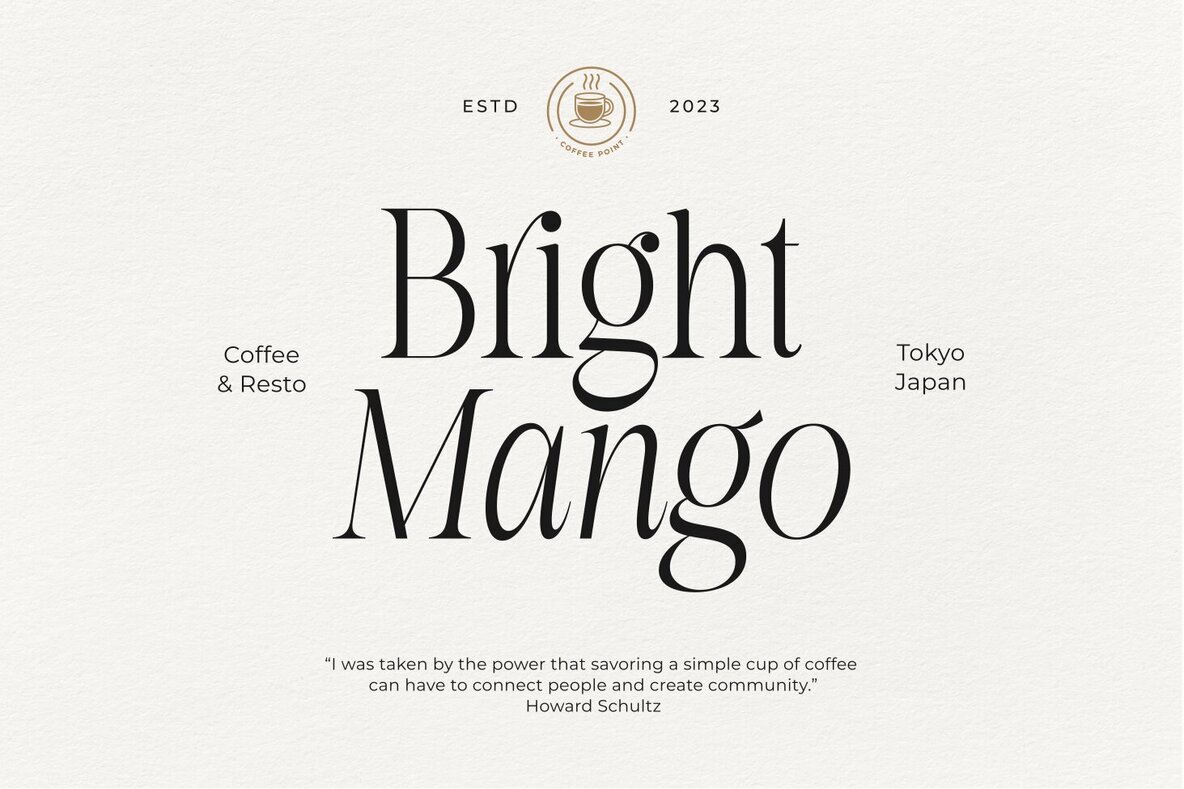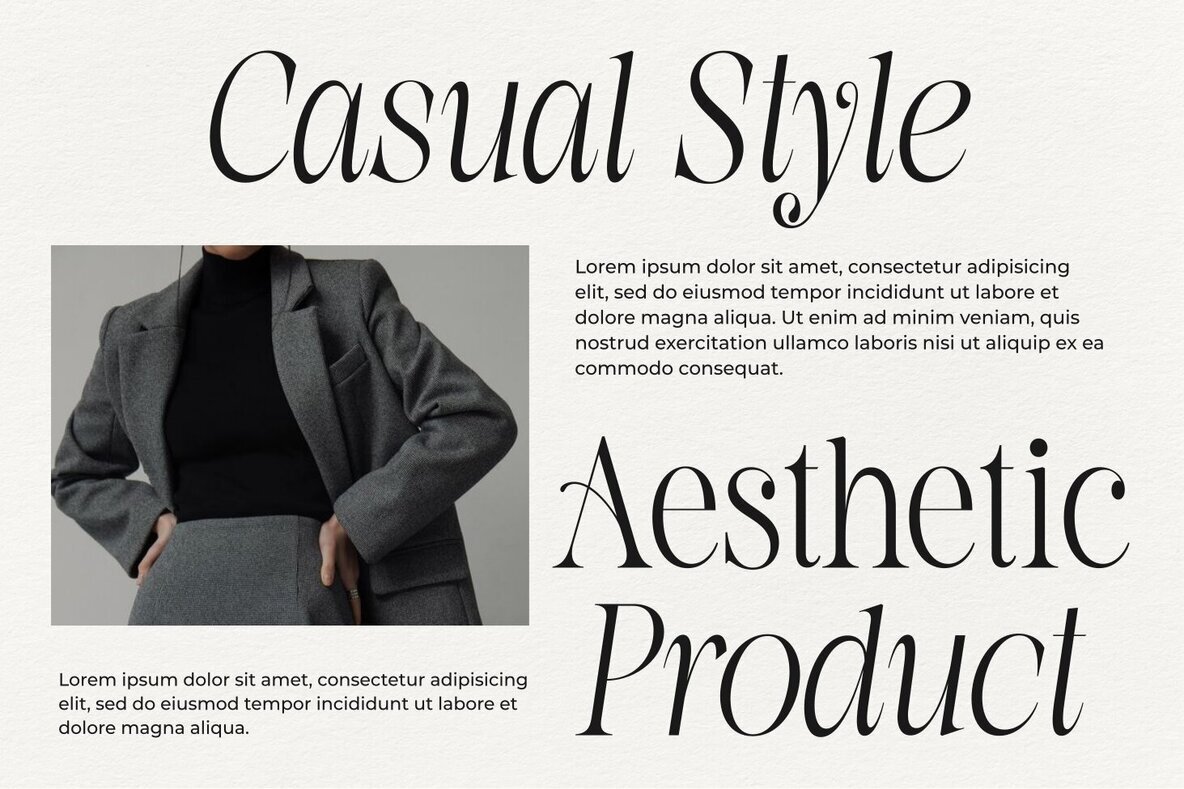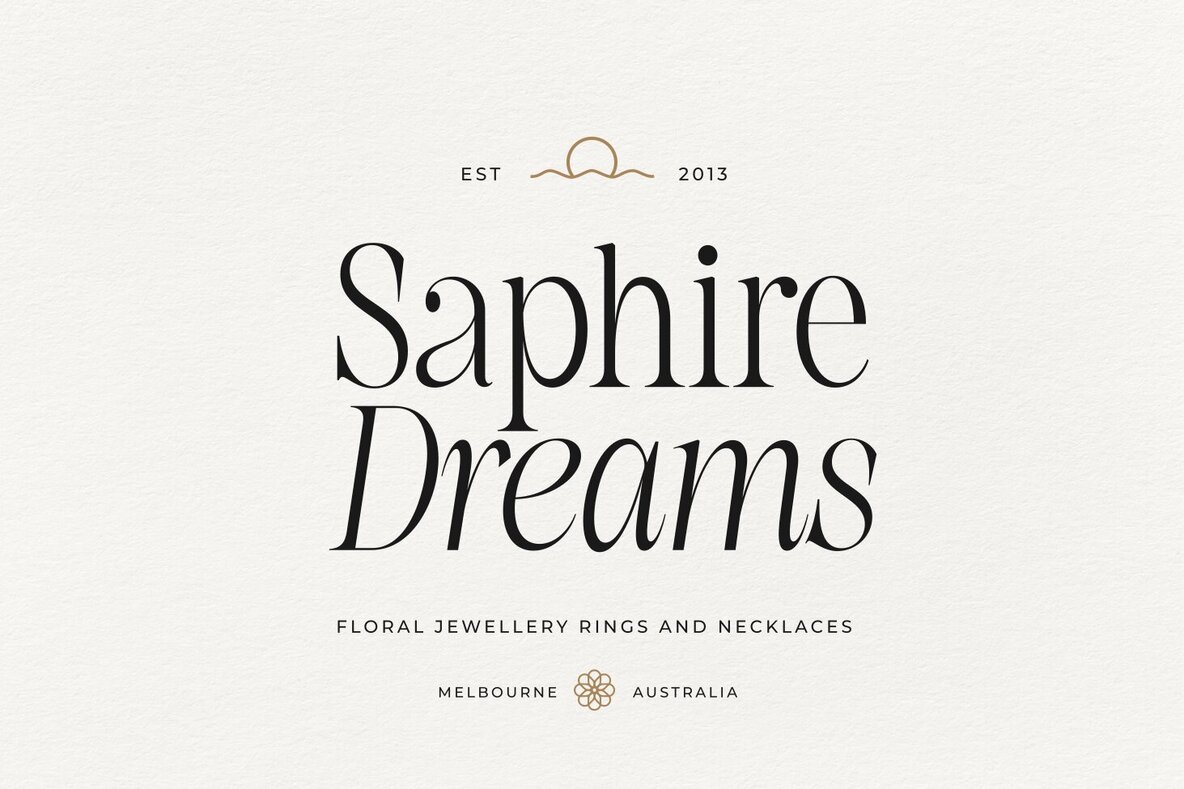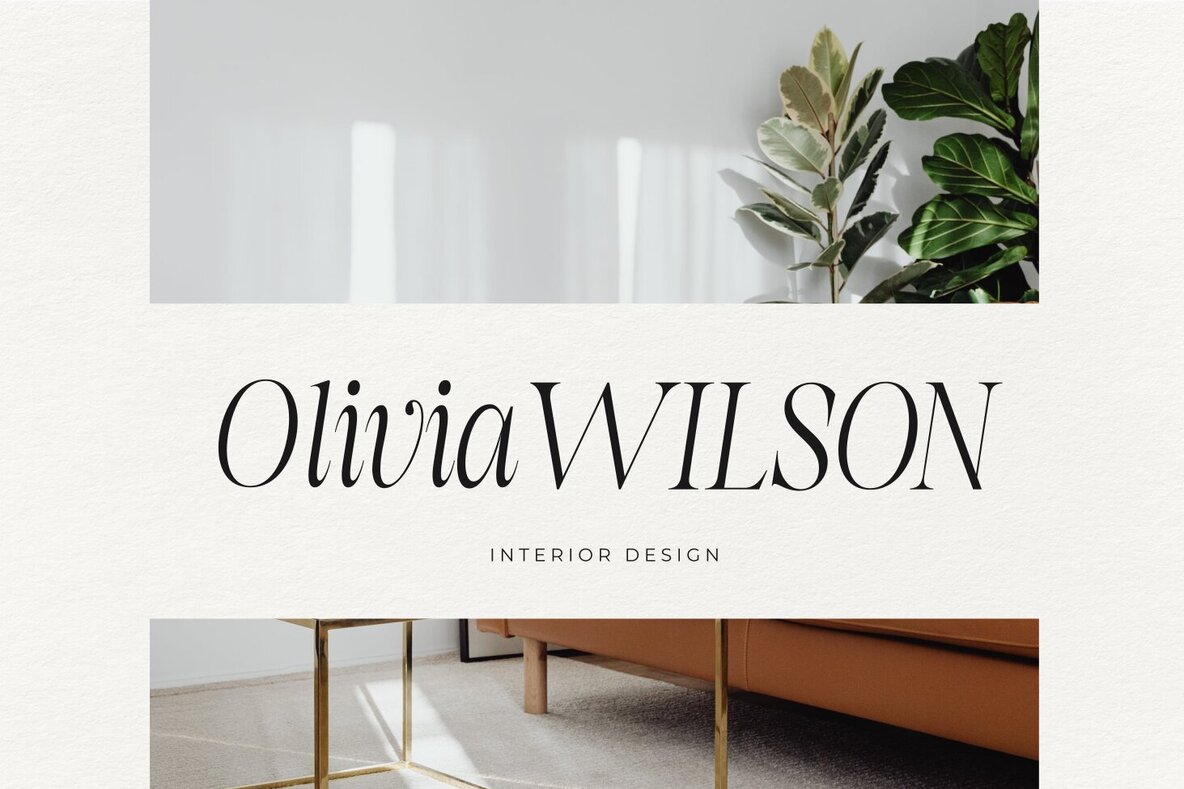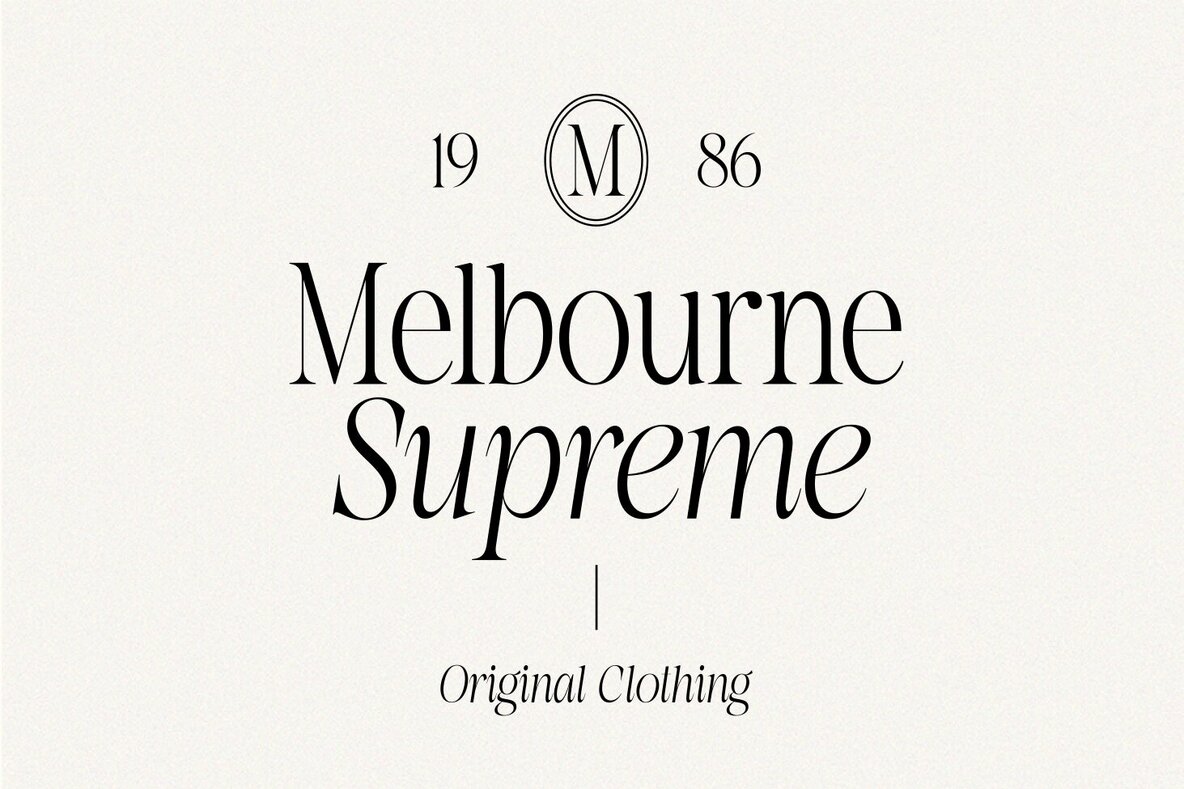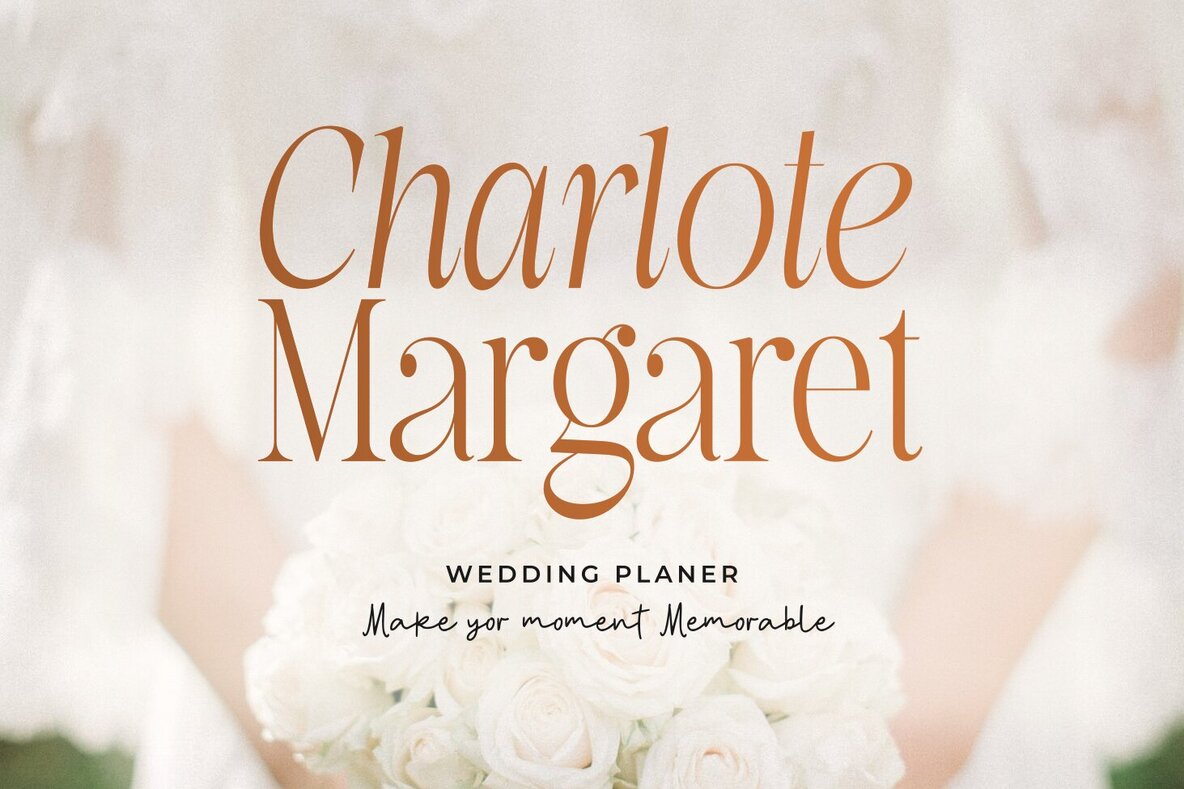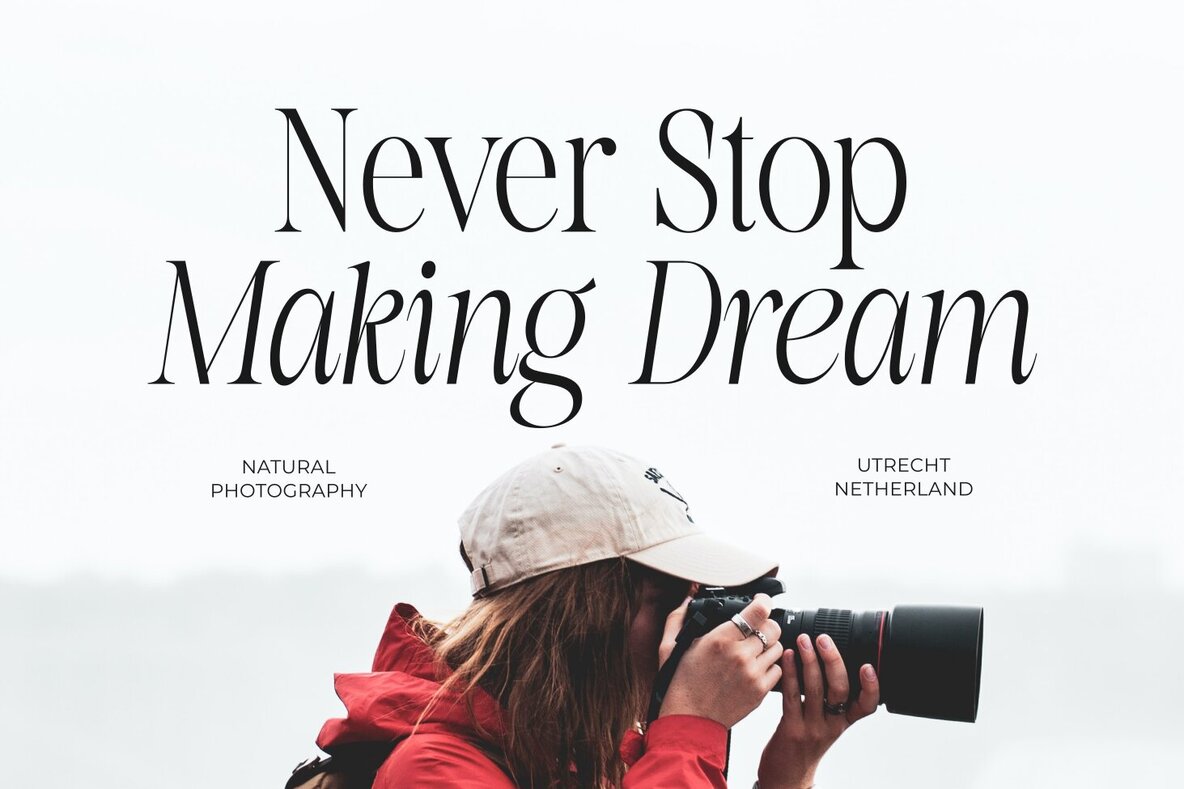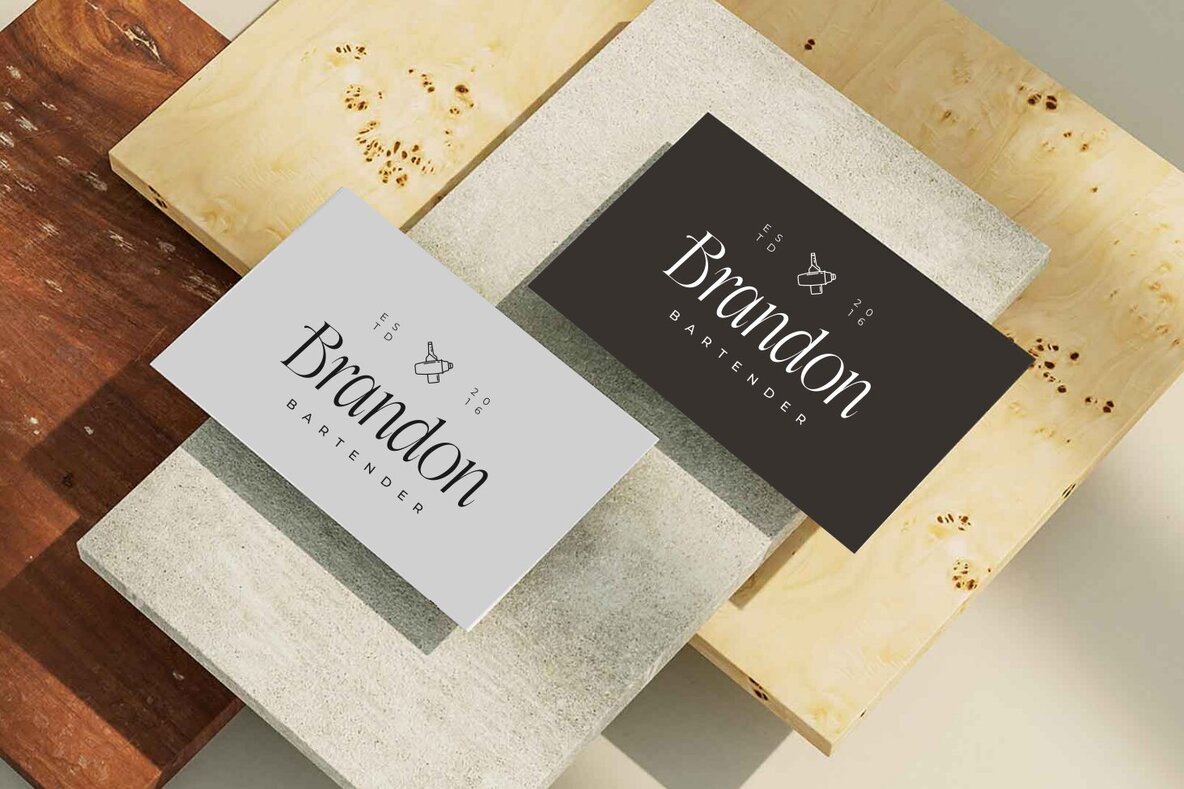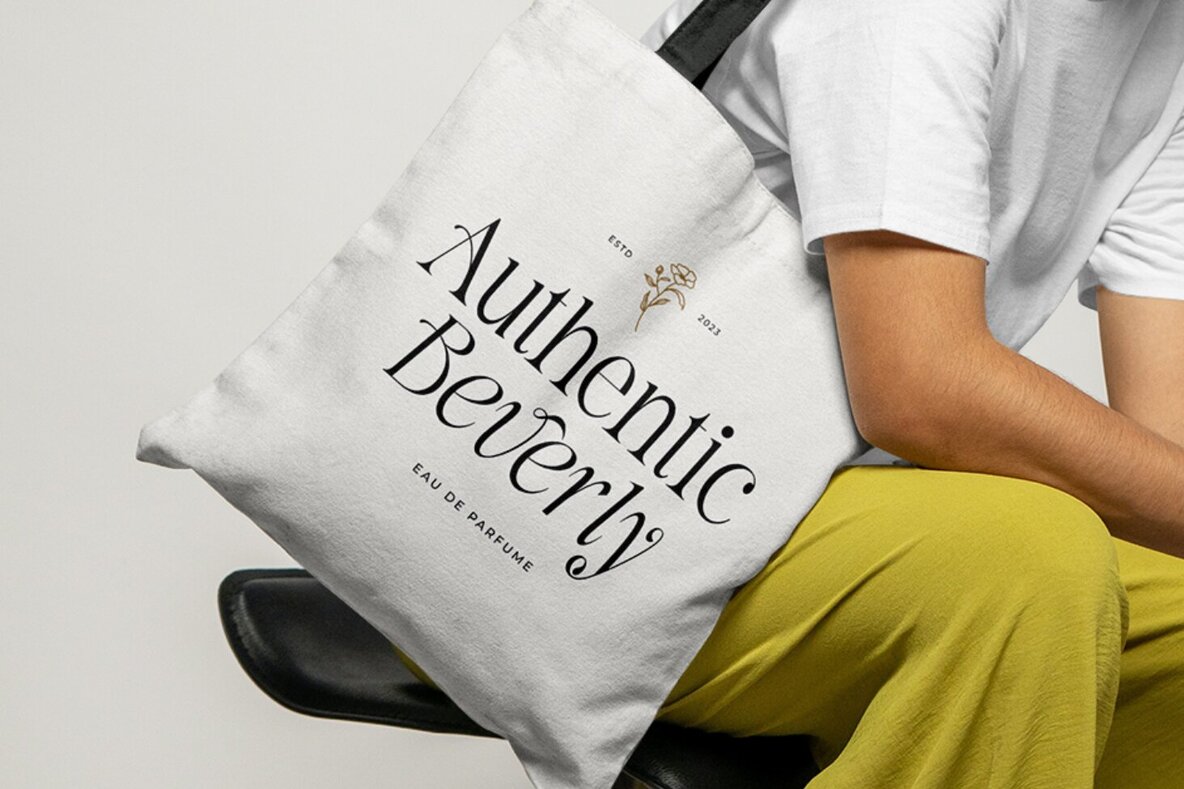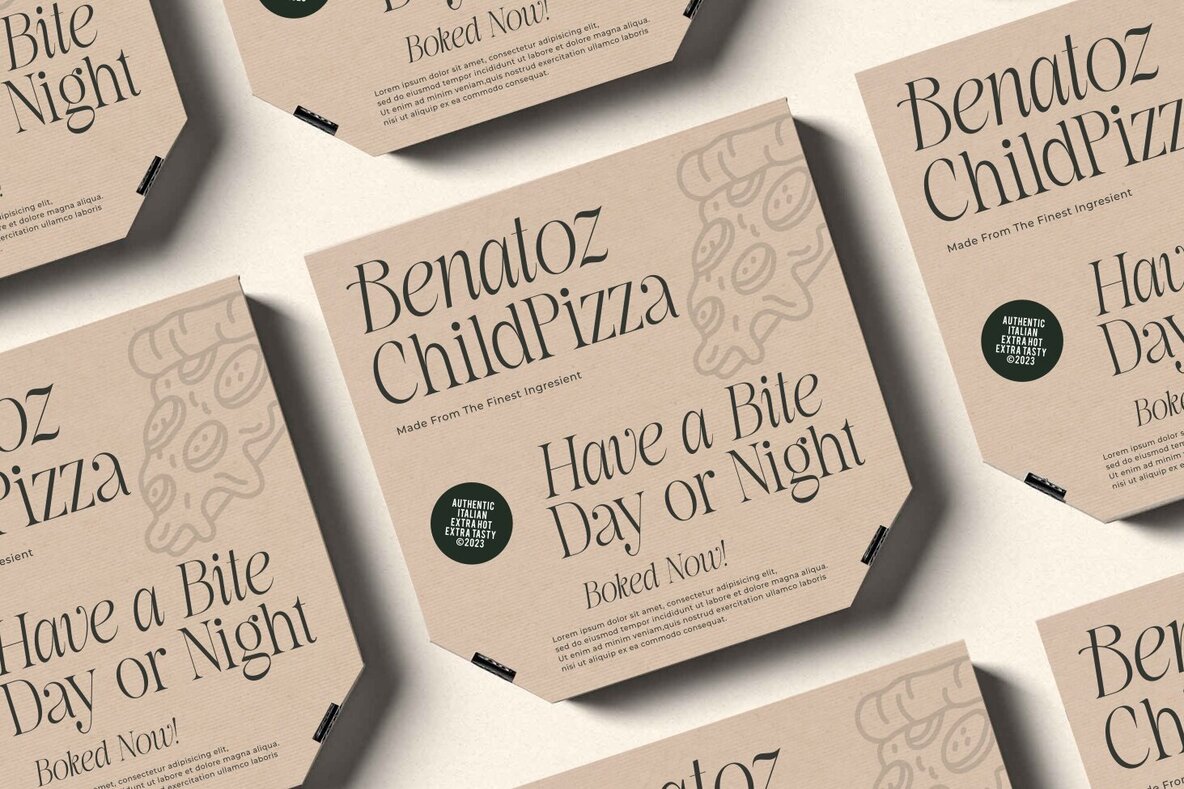
La Fleur Grande Font
La Fleur Grande is a sophisticated serif typeface, combining regular and italic styles to deliver an elegant and smooth appearance. Its versatility shines through, particularly when used in large text settings. The inclusion of stylistic alternates and ligatures enhances your project visually. La Fleur Grande is perfect for a range of editorial and design projects, including logo design, product packaging, and magazine layouts. It also works beautifully as a stylish text overlay on background images for various digital uses. Enjoy using this font, and feel free to share any thoughts or feedback. We are grateful for your purchase and happy to assist you!La Fleur Grande: Elegant Serif Typeface